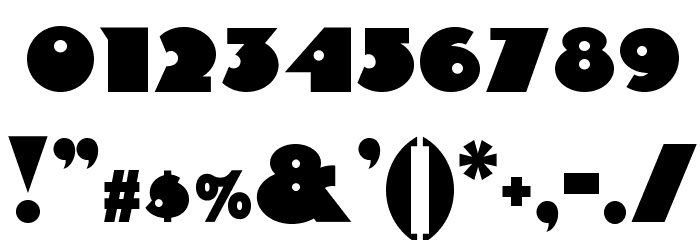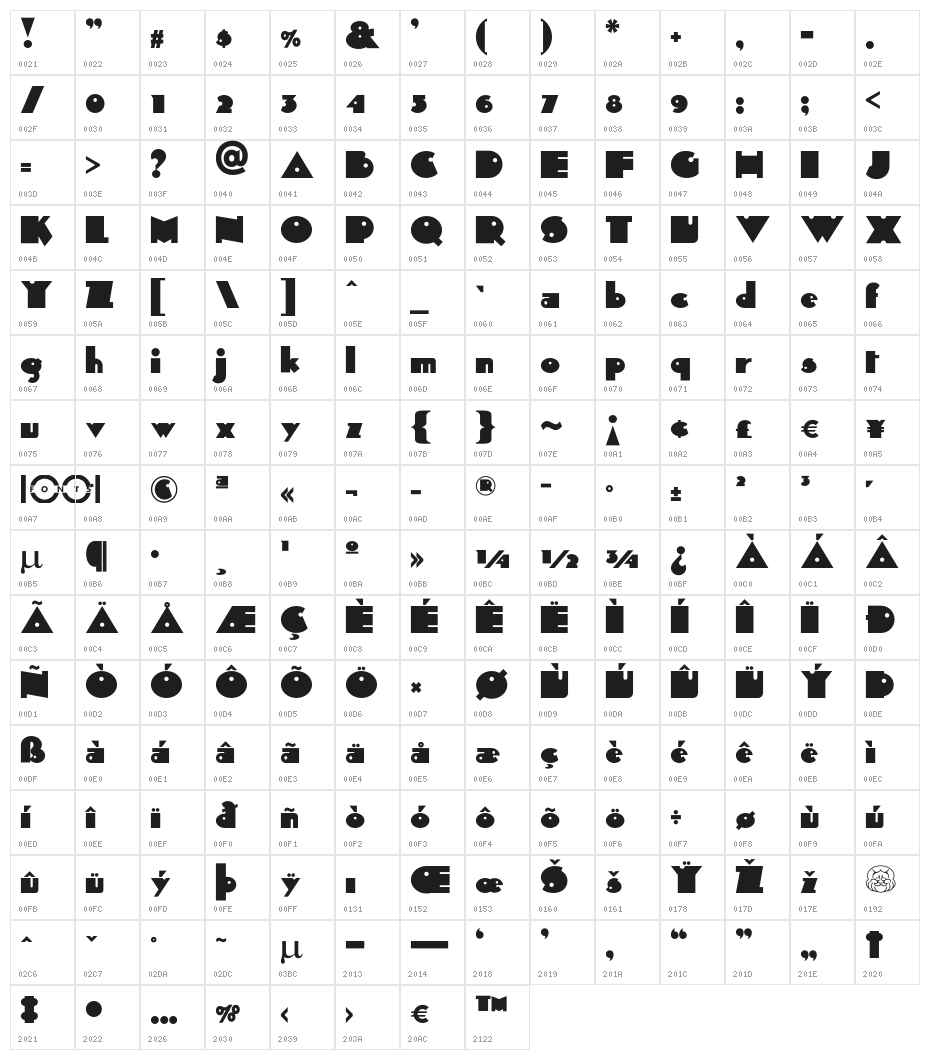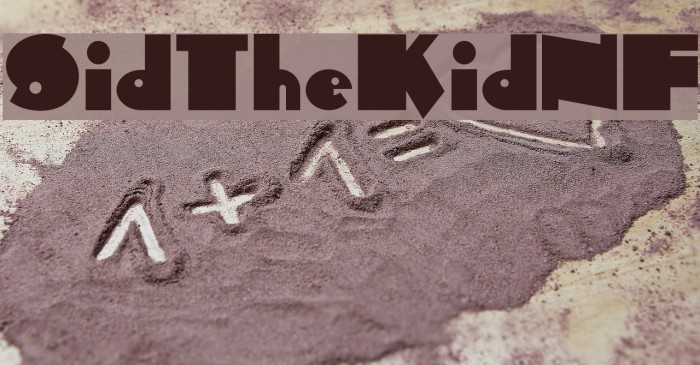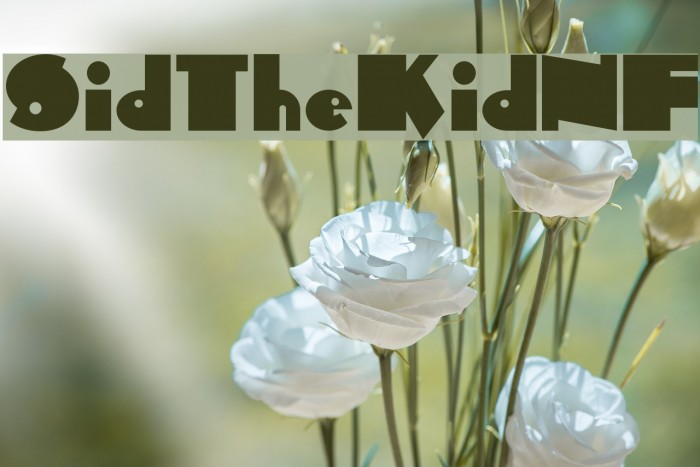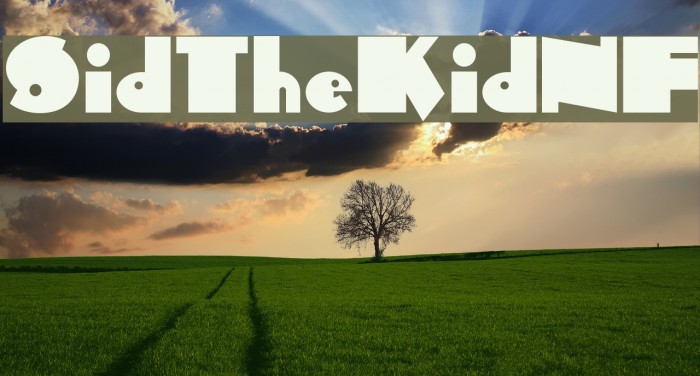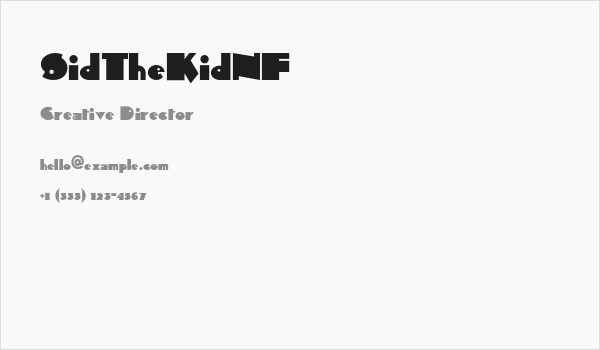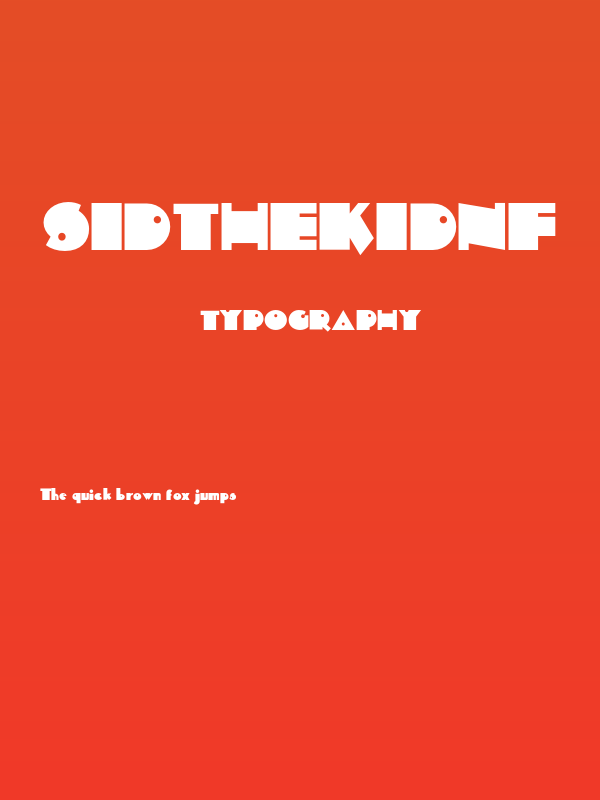
SidTheKidNF Font
SidTheKidNF Description
This font features a bold and geometric design with strong, angular shapes and a distinct, playful character. The uppercase letters are particularly striking, with a blocky appearance that commands attention. The lowercase letters maintain the boldness but offer a slightly softer edge, making them versatile for various design applications. Numbers and special characters follow the same bold and geometric style, ensuring consistency across all text elements. The font's unique style makes it suitable for creative and eye-catching designs.